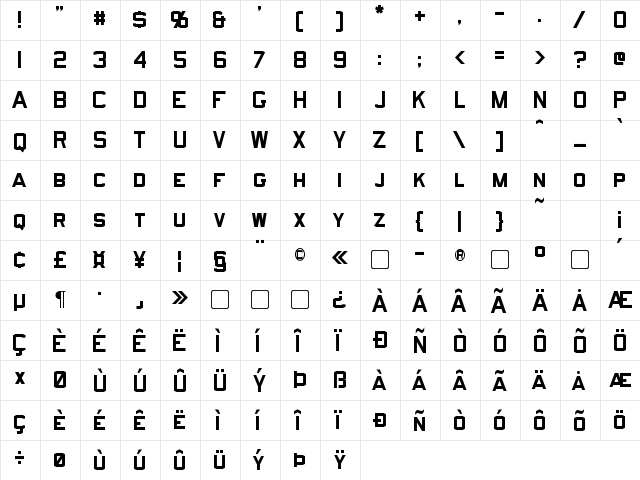
Norfolk Regular
| Foundry | Pixel Sagas |
| Designer | Neale Davidson |
Design Context for Norfolk Typeface
Norfolk offers clean, dependable letterforms without strong stylistic allegiance, making it a practical choice for designers who need flexibility.